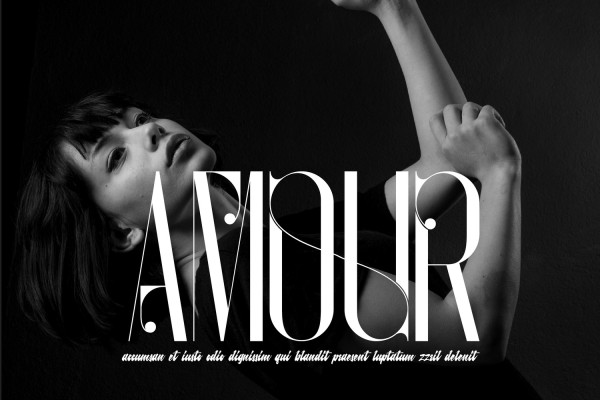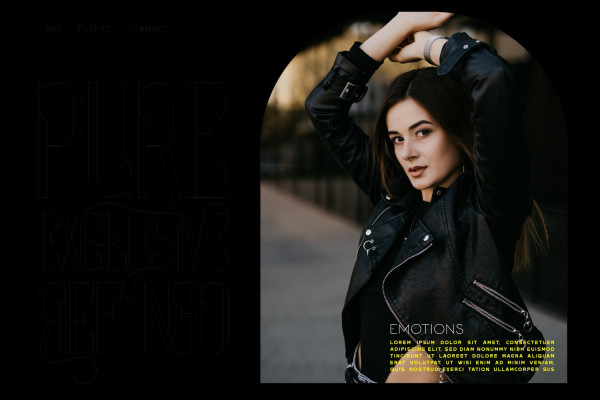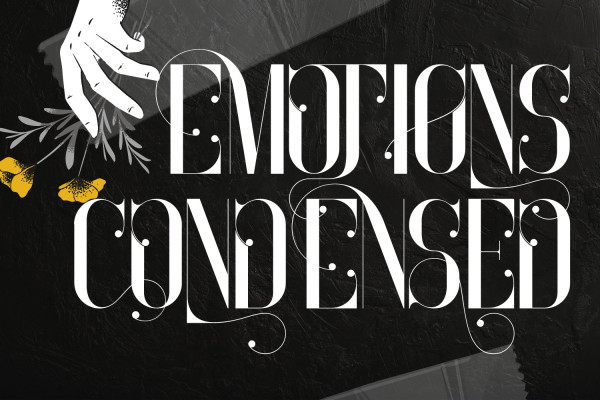
Emotions Condensed Font
Emotions Condensed Font is a simple, condensed sans serif font with bold and complex personality. The type is a weird serif combined with some sharp turns. This makes the type somewhat a hybrid in between the future & the past, keeping our old era alive while still being somewhat trendy. It was purposely crafted to be used in large point sizes, although it doesn’t lose it’s magic in small point sizes.
Emotions Condensed was built with OpenType features and includes 100 ligatures, alternate, numbers, punctuation, and it also supports other languages.
AC AD AL AN AR AS AT AU AV BE CA CE CH CO CT DE DI EA EC ED EE EL EM EN EP ER ES ET FE FO FR GE HA HE HI HO IE IC IL IN IO IR IS IT JU KE LA LE LI LL LO LY MA ME MI NC ND NE NG NO NT NS OC OF OM ON OO OP OR OT OU OW PA PR RA RD RE RI RO RS RT SE SH SI SO SS ST TA TE TH TI TO TR TT UM UN UR VE WI WO